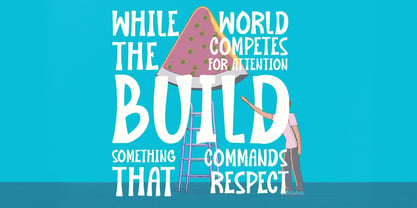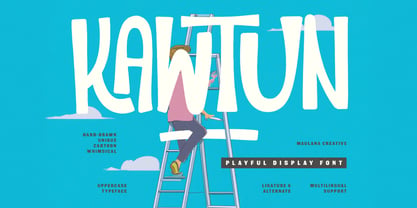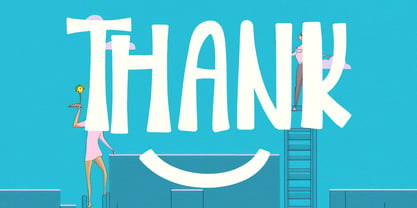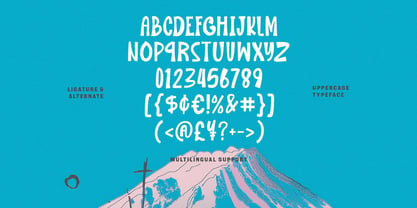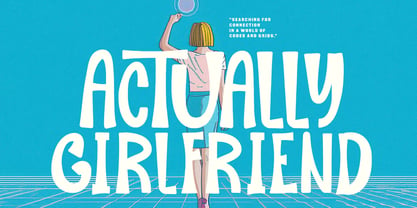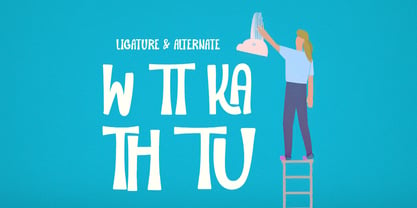
MC Kawtun
by Maulana Creative
The MC Kawtun Font Family was designed by Gilang Maulana and published by Maulana Creative. MC Kawtun contains 1 styles. More about this family
Kawtun is a charming and hand-drawn display font designed to bring a sense of joy and whimsy to your creative projects. Characterized by its irregular, bouncy letterforms and bold presence, this uppercase typeface captures a "cartoon-ish" energy that is perfect for children's books, quirky branding, and eye-catching posters. With its unique ligatures and multilingual support, Kawtun offers a handcrafted feel that stands out in a world of rigid grids, making it an ideal choice for designers looking to add a touch of personality and warmth to their work.
Designers: Gilang Maulana
Foundry: Maulana Creative